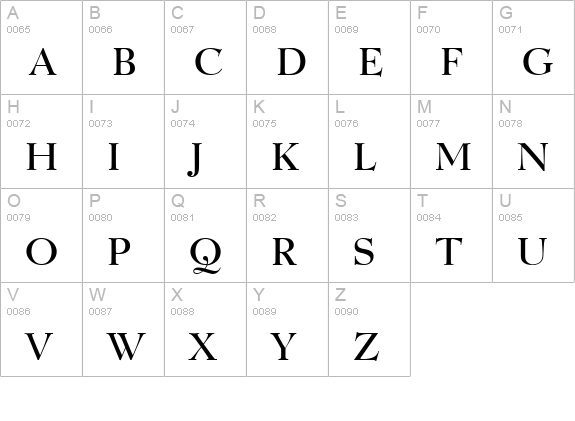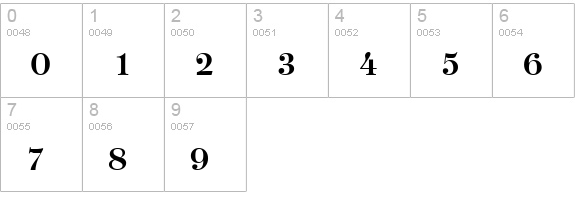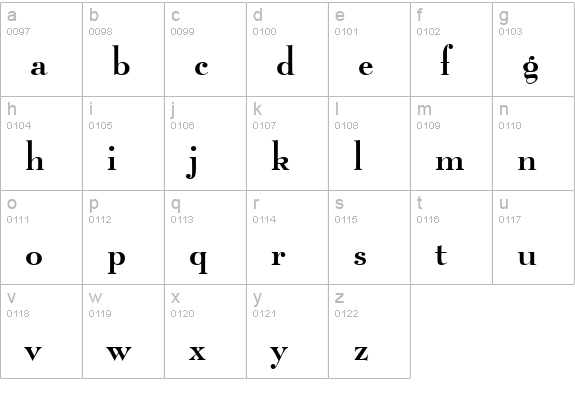
Luciano Normal is the standard, neutral variant in the Luciano typeface family \xE2\x80\x94 well suited to general body text, paragraphs, and standard typographic work.
Introducing Luciano Normal font - a timeless and versatile typeface that exudes elegance and sophistication. With its clean lines and classic design, Luciano Normal is perfect for a wide range of projects, from branding to editorial design. What sets Luciano Normal font apart is not just its exquisite aesthetics, but also the fact that it is available for free download at FontsMarket.com. That's right, you can add this stunning font to your collection without spending a dime. Whether you're working on a logo, website, or any other creative project, Luciano Normal font will elevate your design with its refined charm and effortless style. Download it now and let your creativity shine with this exceptional typeface.